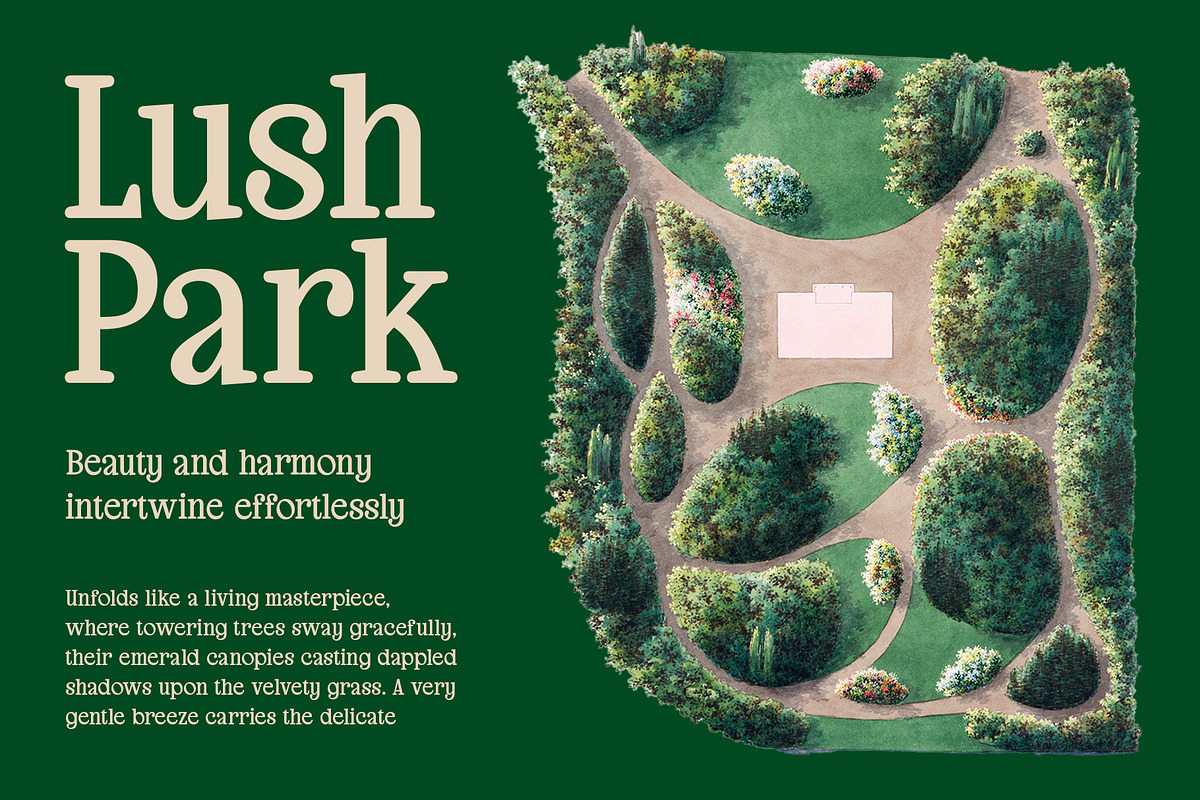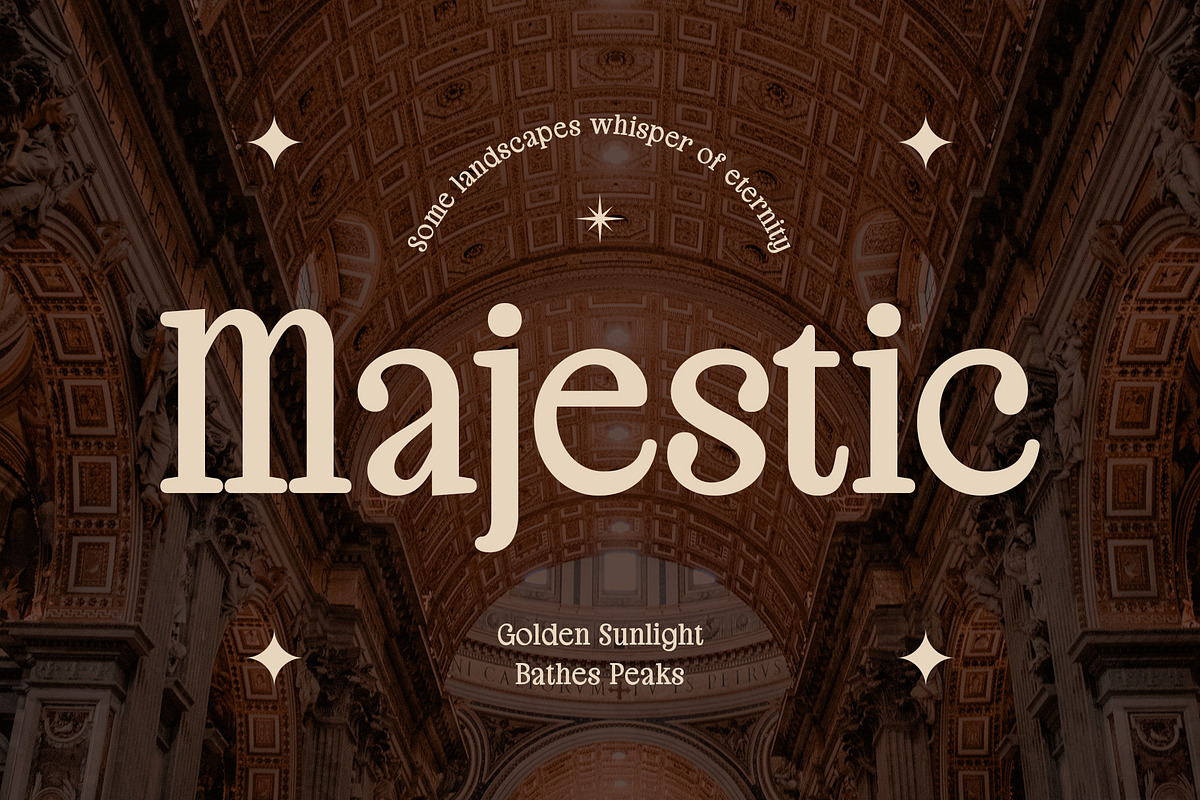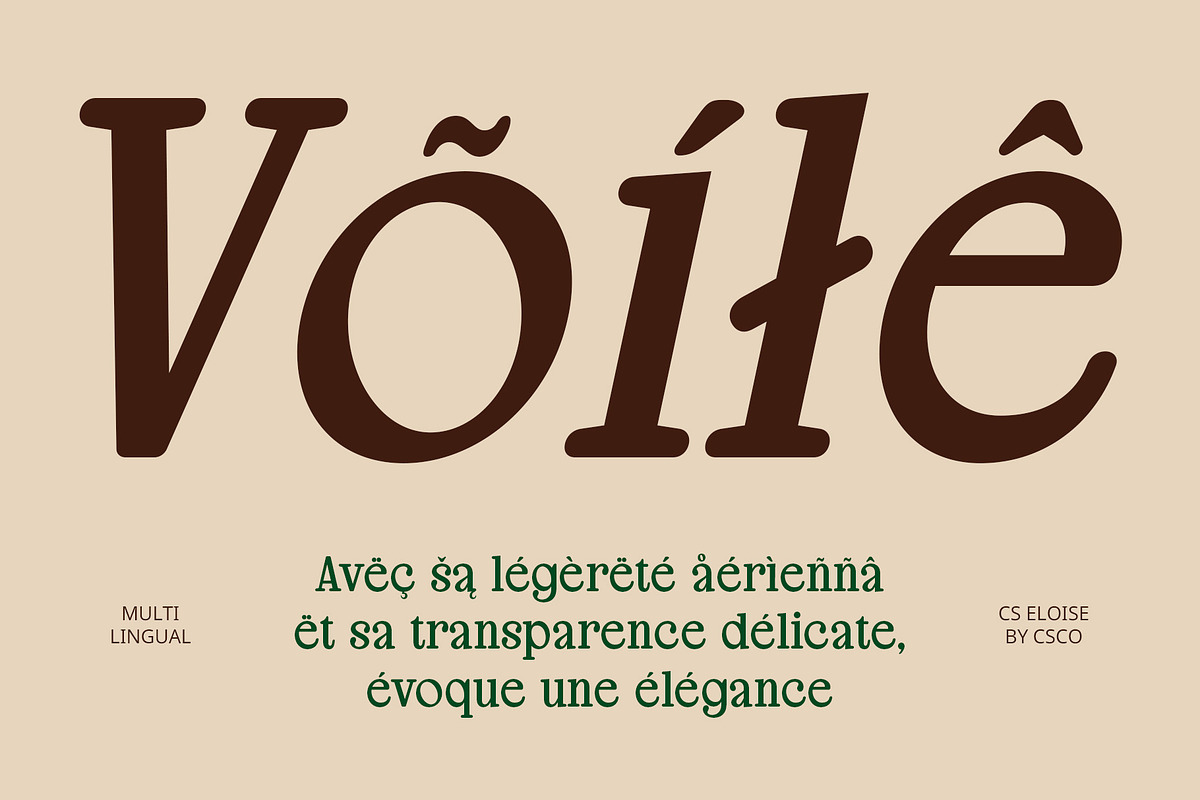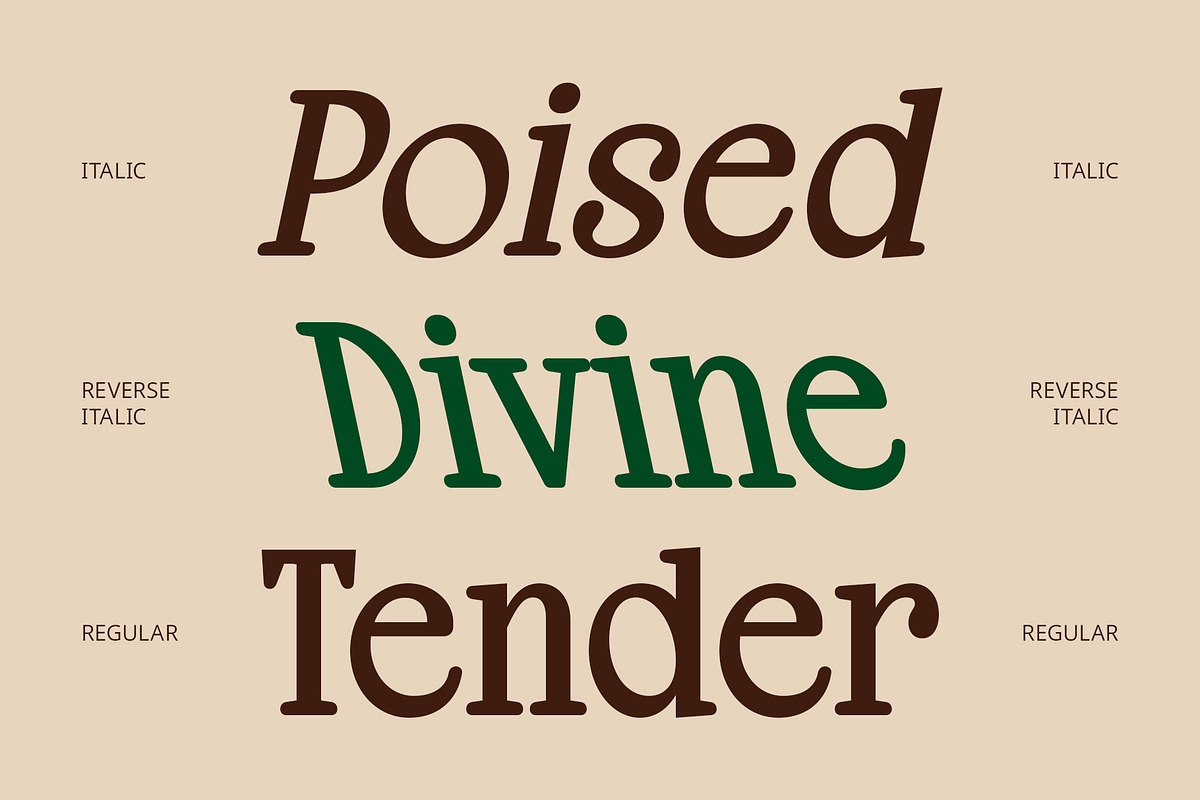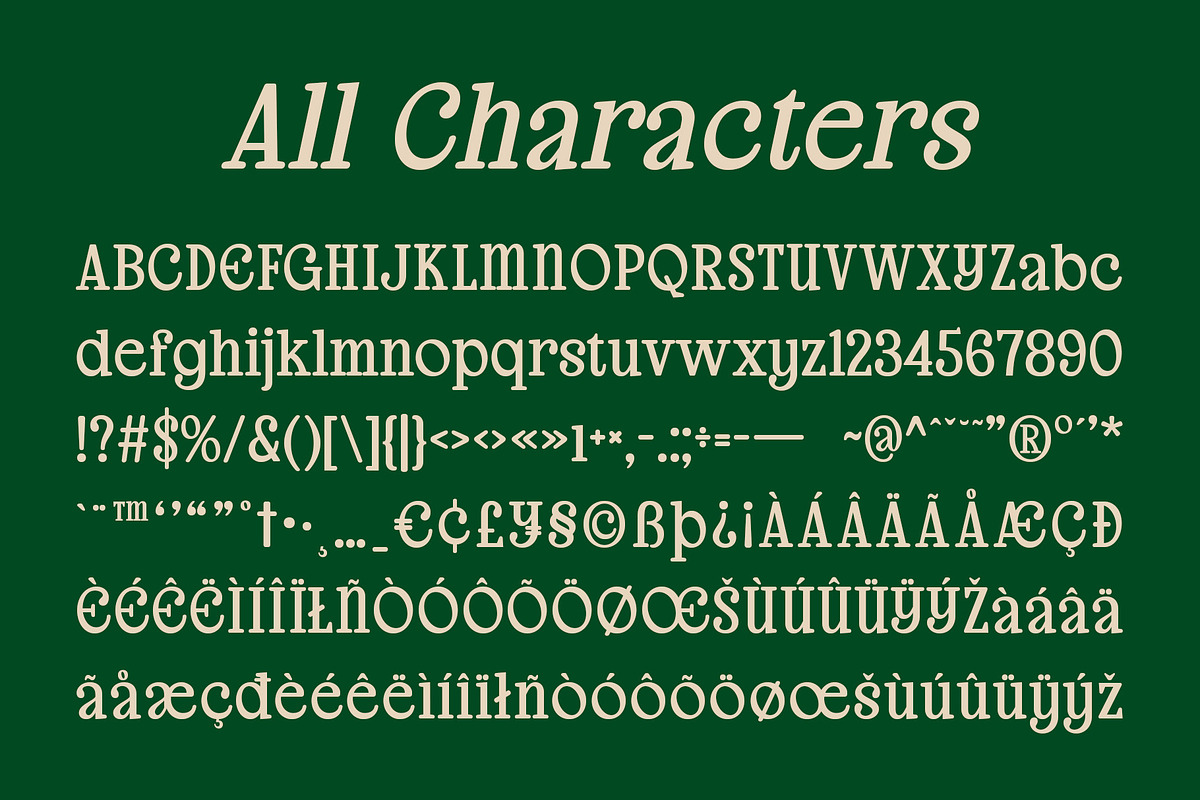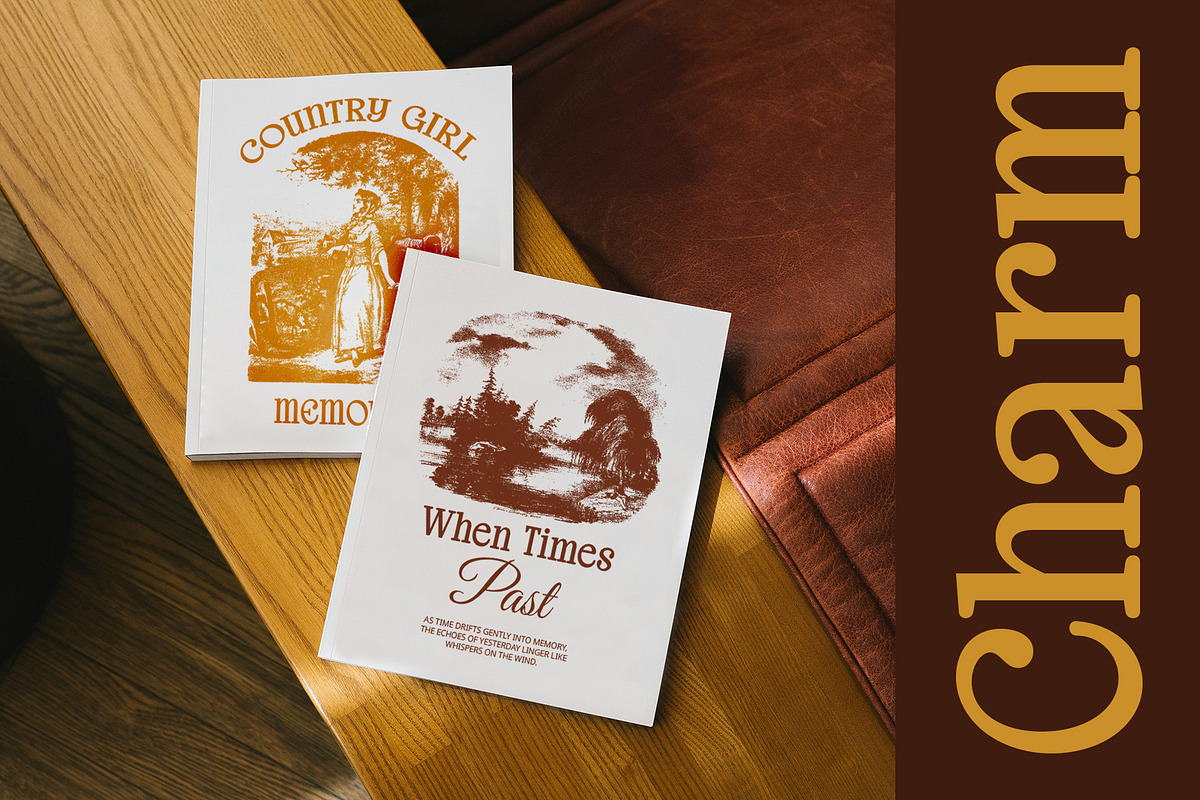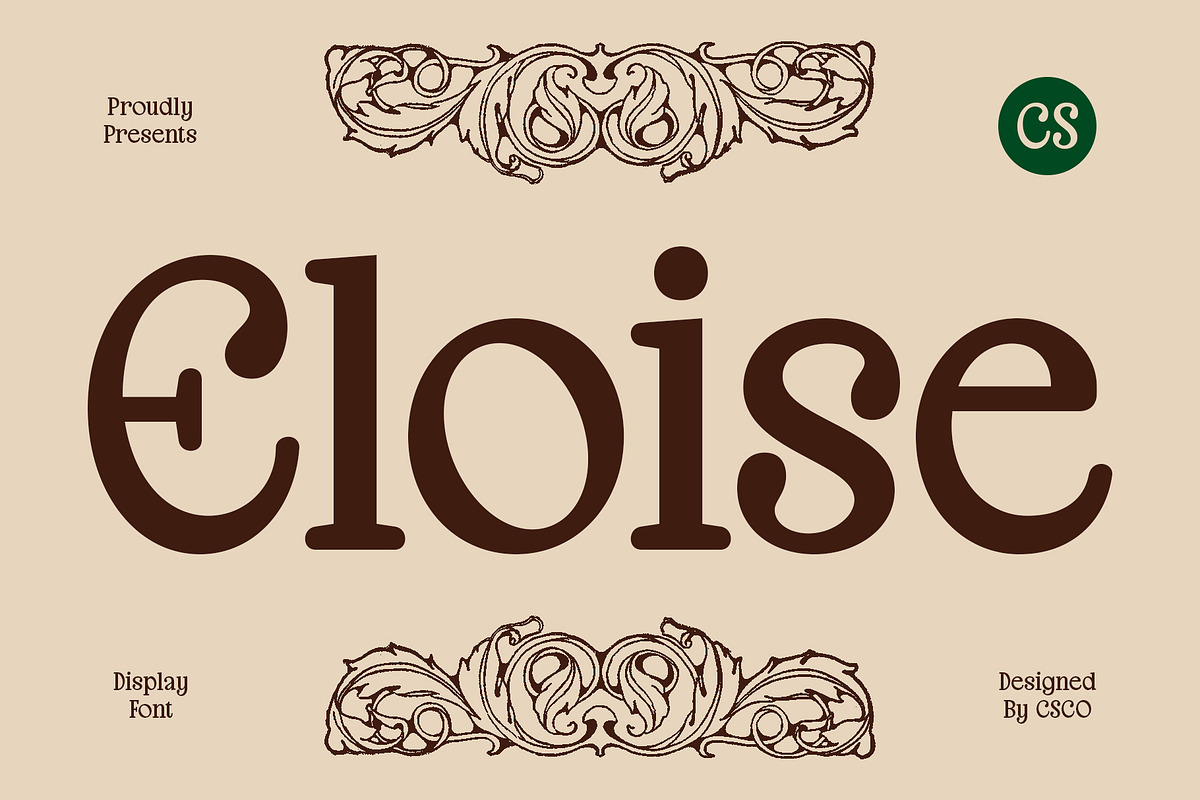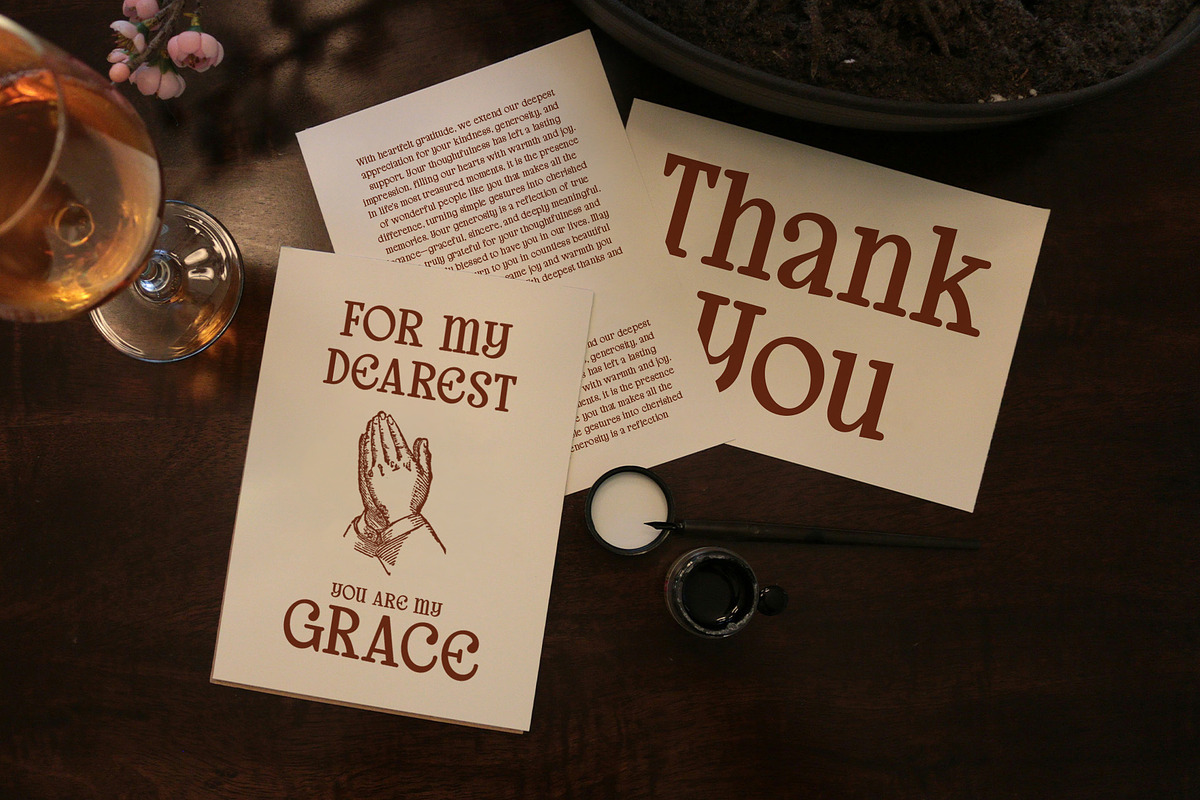
CS Eloise – Aesthetic Font
CS Eloise – Aesthetic Font: Graceful, Elegant, and Inviting
Modern Display Serif Font with Rounded Shapes CS Eloise is a modern display serif font that combines soft, rounded shapes with refined proportions. The graceful curves and subtle elegance of the font make it stand out as a timeless design, offering a perfect balance between classic sophistication and contemporary charm. Its aesthetic touch creates a beautiful and inviting atmosphere, ideal for premium and luxurious projects.
Balanced Elegance and Modern Appeal The design of CS Eloise exudes a unique blend of classic and modern influences. The rounded serifs provide a soft and welcoming feel, while the refined letterforms ensure a sleek, sophisticated appearance. Whether used in branding, editorial layouts, or invitation designs, this font captures the essence of both beauty and luxury, making it perfect for projects that require an elegant yet approachable vibe.
Perfect for Beauty and Luxury Design Projects Ideal for luxury branding, high-end editorials, and invitation designs, CS Eloise is the go-to font for projects that wish to convey both elegance and warmth. The soft, rounded serifs add a level of refinement, while the overall design remains friendly and approachable, making it an excellent choice for brands and events that want to project an inviting, graceful image.